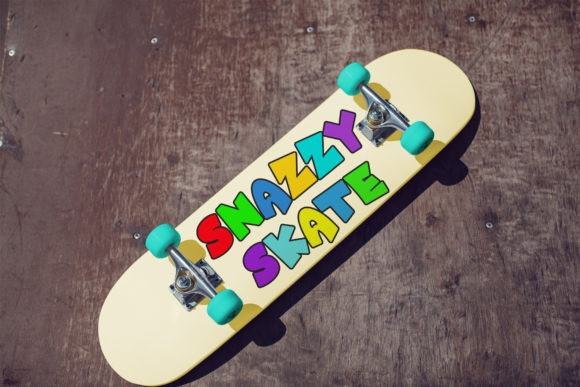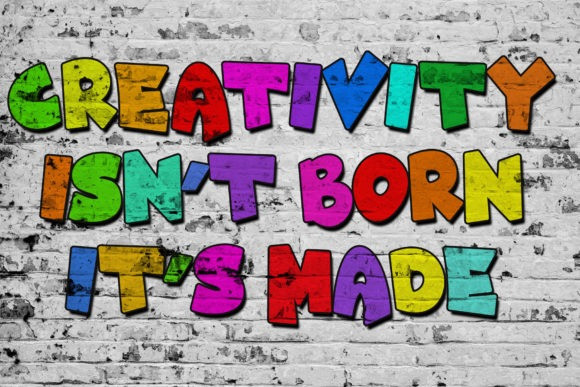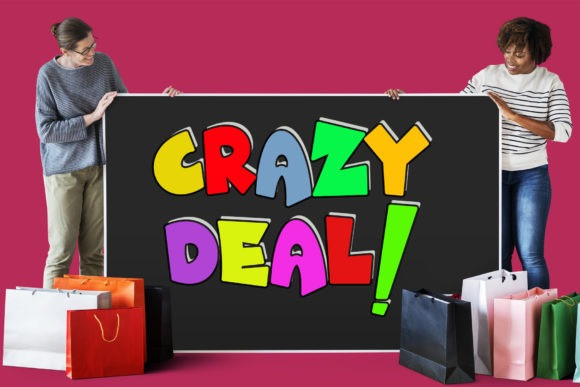
SUSH! Display Font
This is a bold and stylish display font, designed to make your projects stand out. Made from font designer named tinyhandletter. It’s perfect for artsy designs, such as branding, logos, blog entries, custom art, quotes and much more! Sush! is PUA encoded which means you can access all of the glyphs and swashes with ease!